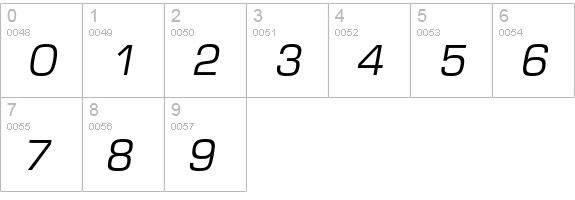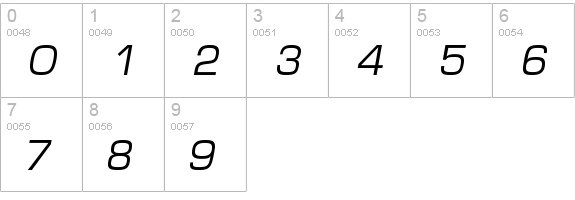
Europe Italic is a distinctive, italic variant in the Europe typeface family \xE2\x80\x94 well suited to design and typography projects.
Europe Italic font is a stunning and elegant typeface that exudes sophistication and class. With its sleek and stylish letterforms, this font is perfect for adding a touch of refinement to any design project. The italicized style adds a sense of movement and flair, making it ideal for use in headlines, quotes, and other attention-grabbing text. The best part? Europe Italic font is completely free to download at FontsMarket.com. This means you can access this beautiful font without any cost, allowing you to elevate your designs without breaking the bank. Don't miss out on this fantastic opportunity to enhance your projects with the Europe Italic font – download it today and take your designs to the next level!